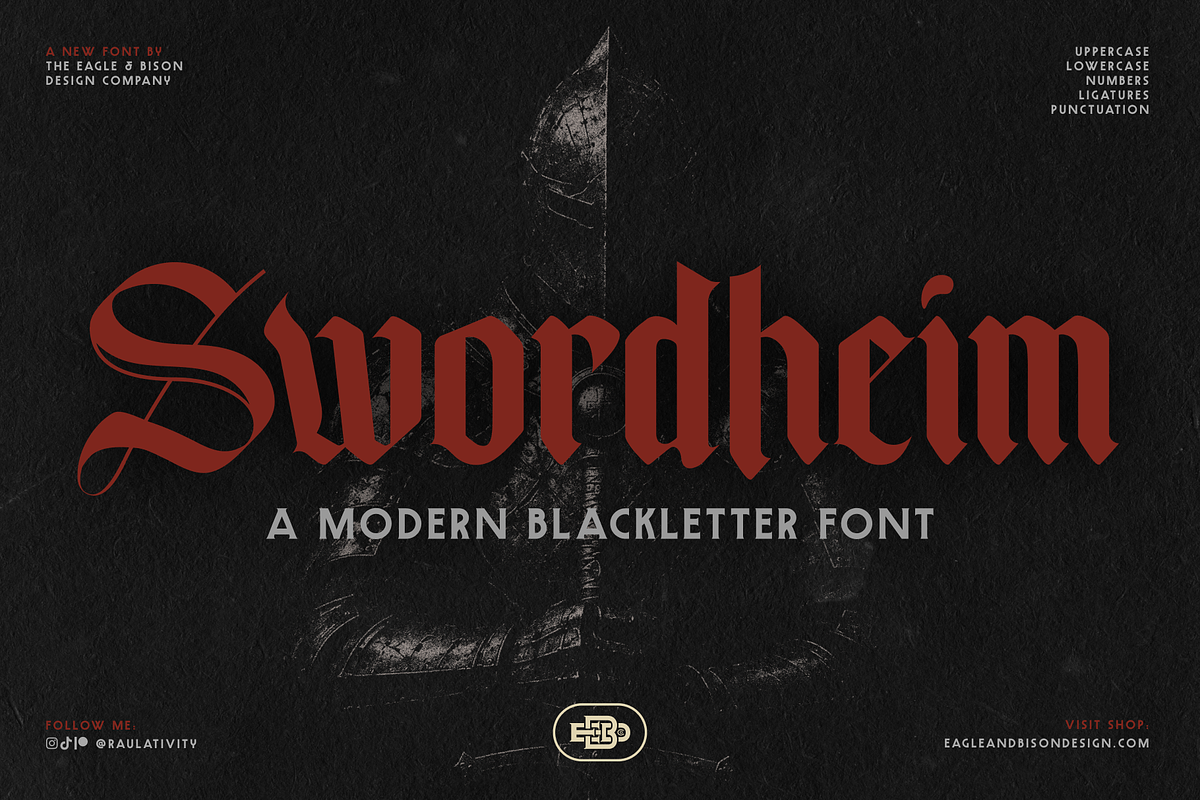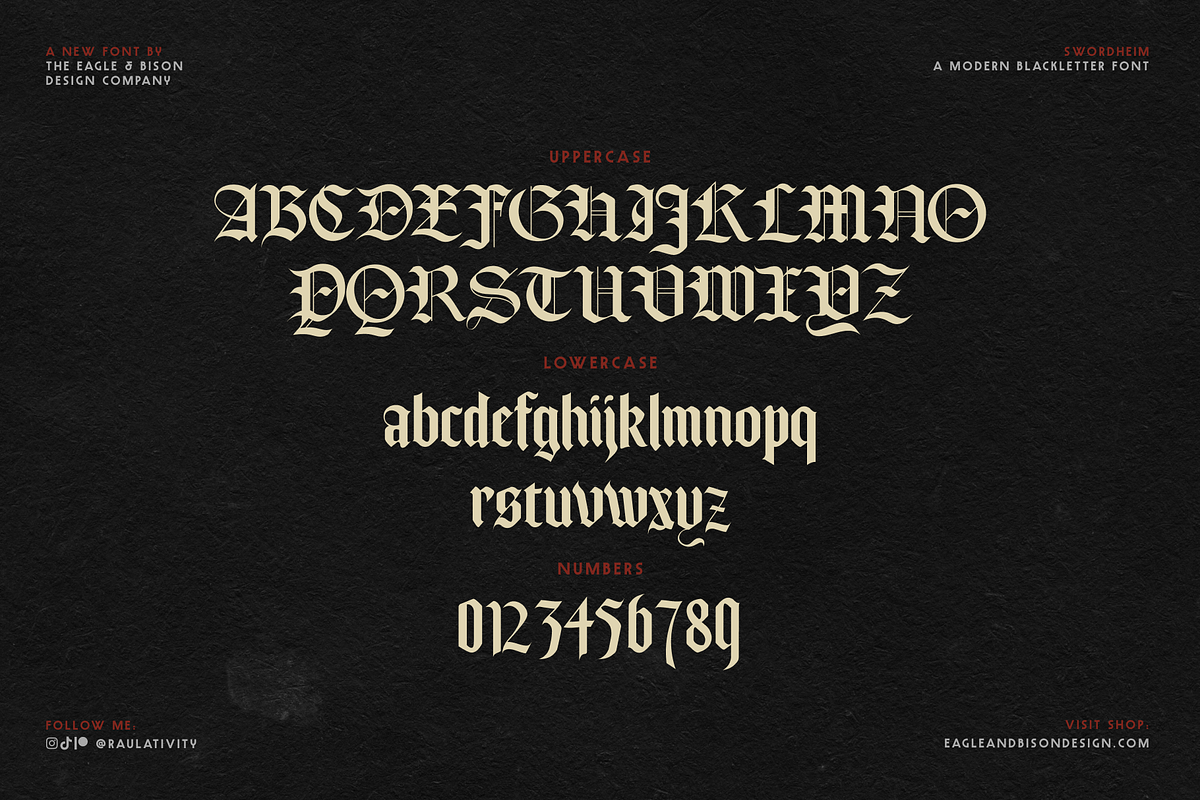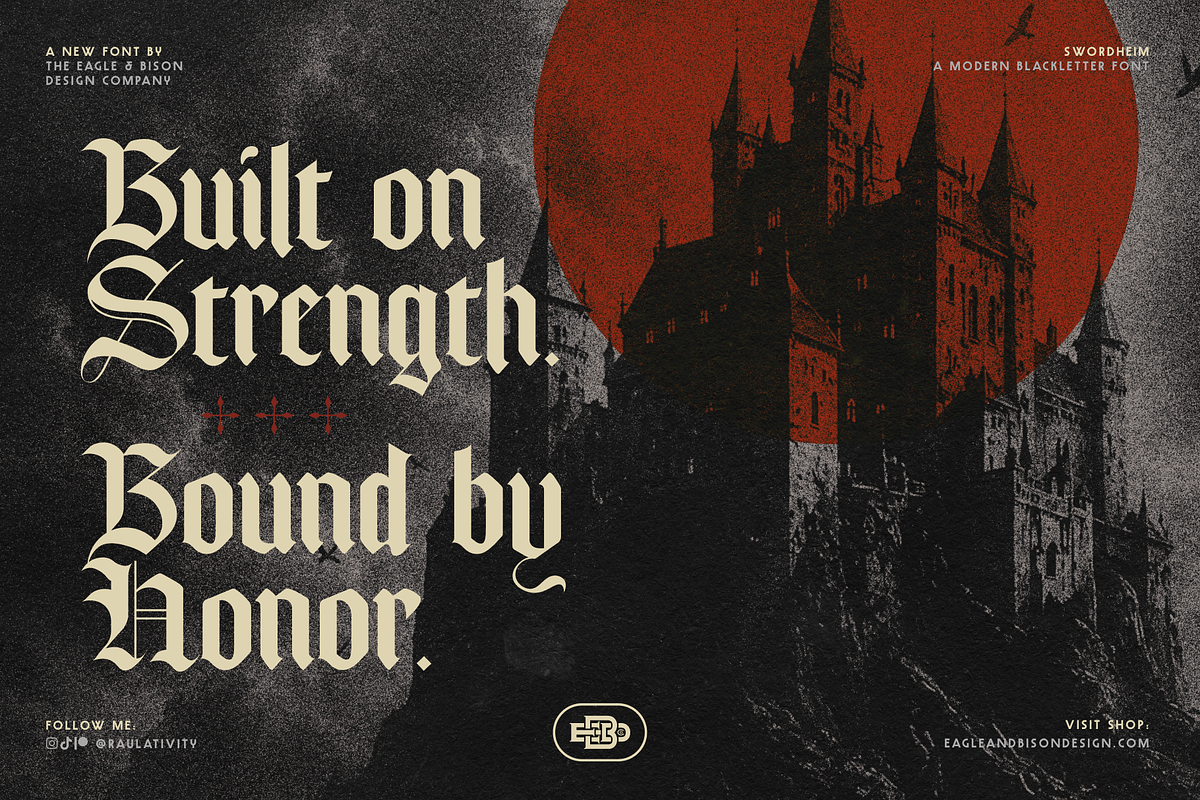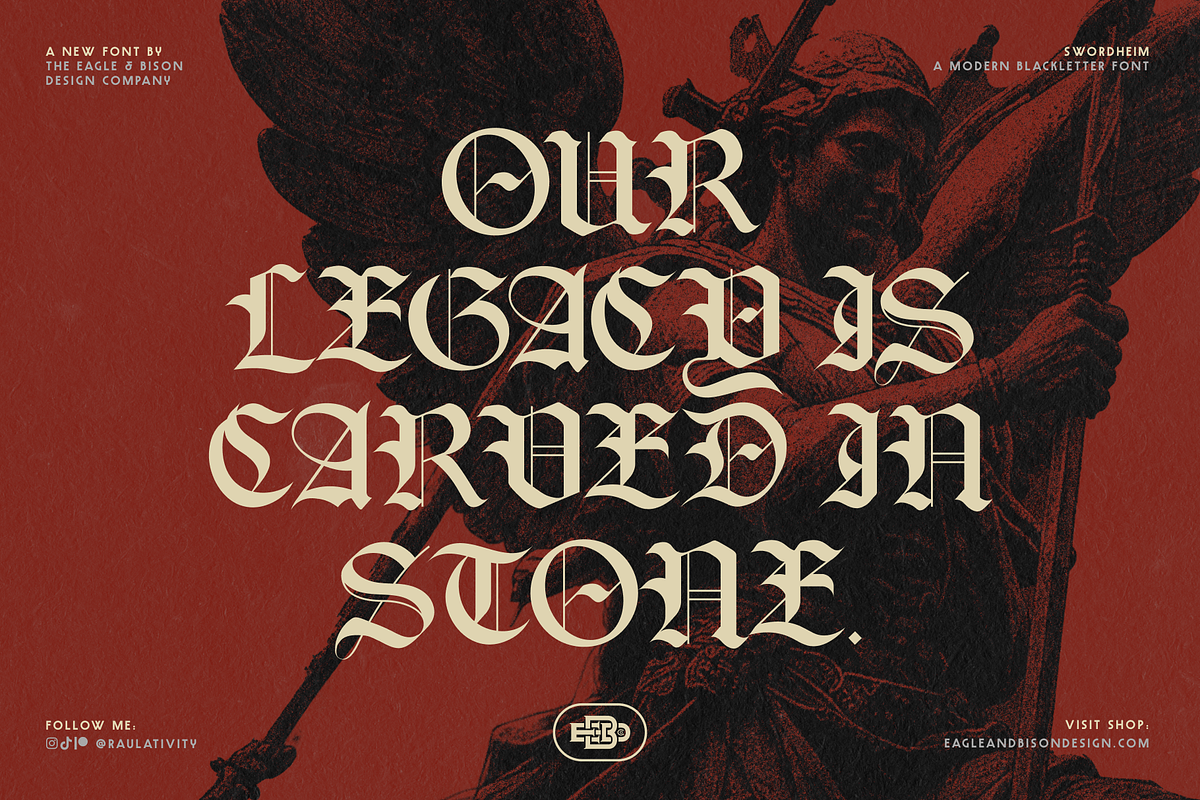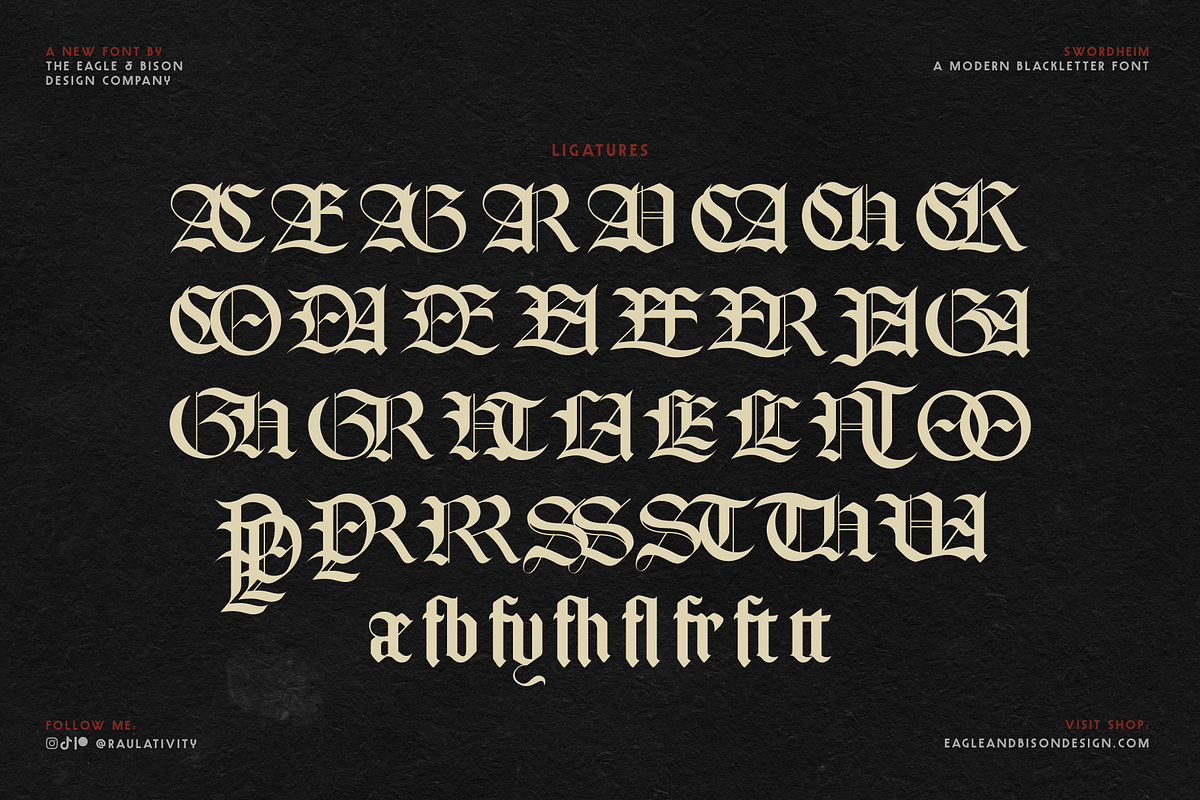
Swordheim
Introducing Swordheim, a modern blackletter typeface from Eagle & Bison Design Co. Inspired by historic medieval lettering and refined for today’s creative work, Swordheim combines traditional blackletter forms with clean construction and contemporary usability. Designed to command attention, it’s an ideal choice for branding, logos, apparel, album artwork, posters, packaging, gaming, and bold editorial typography.
Swordheim features a total of 108 carefully crafted characters, including:
Uppercase & Lowercase Letters
Numerals
Functional Punctuation
39 Discretionary Ligatures
With its sharp forms, dramatic character, and handcrafted details, Swordheim delivers the timeless spirit of blackletter while remaining versatile enough for modern design. Whether you’re creating a medieval-inspired identity, a heavy metal album cover, a fantasy game title, or a distinctive brand, Swordheim is built to leave a lasting impression.